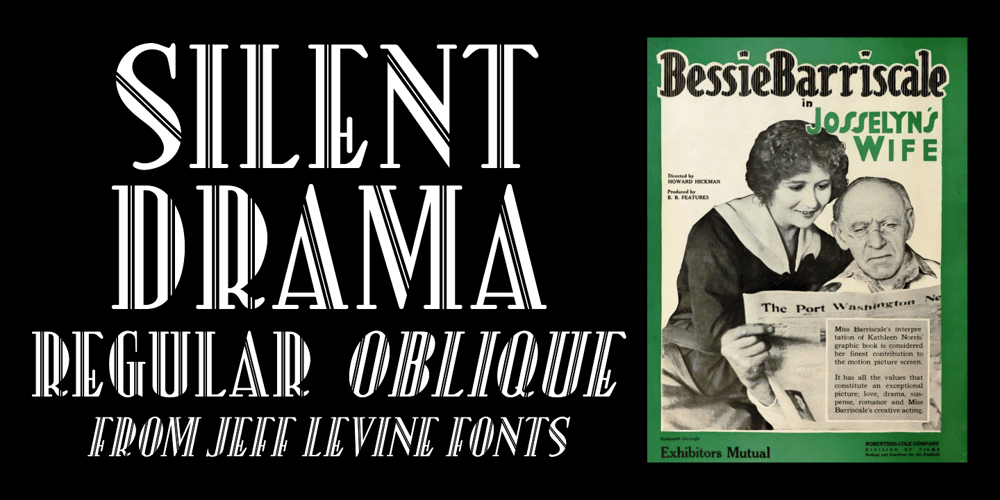
Silent Drama JNL Font Family was designed by Jeff Levine and published by Jeff Levine. Silent Drama JNL contains 2 styles and family package options. An ad in the April 19, 1919 edition of Motion Picture News for the (now lost) silent drama “Josselyn’s Wife” featured some wonderfully stylized Art Nouveau hand lettering.Primarily a condensed character set with rounded serifs, there are a number of letters that take liberties in both width and character shape. Adding to this, [mostly vertical] parallel lines are cut through the characters to create a “striped’ type of “double engraved’ effect.Silent Drama JNL is available in both regular and oblique versions.**Uppercase